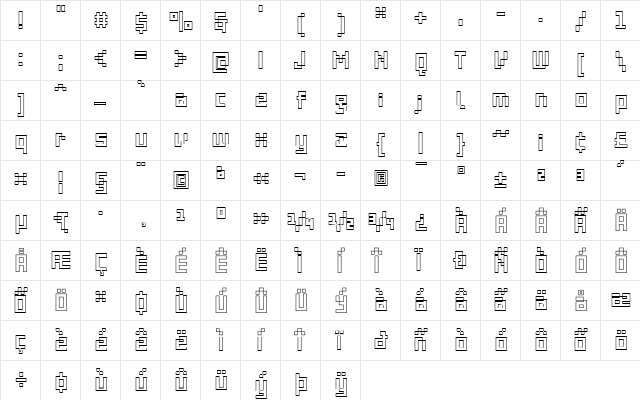
PF Online Three Pro DOutline
| Foundry | Parachute蠗orldwide |
| Designer | Panos Vassiliou |
Design Context for PF Online Three Pro Typeface
PF Online Three Pro is built around its visual character rather than neutral utility — its distinctive forms are designed to make an impression at display sizes.
Font Pairing: Pair with a clean neutral sans-serif for body copy to let PF Online Three Pro's character lead without overwhelming the composition.
Pro Tip: Treat PF Online Three Pro as the centrepiece of your typographic hierarchy. One strong heading set in a decorative face can carry an entire layout.